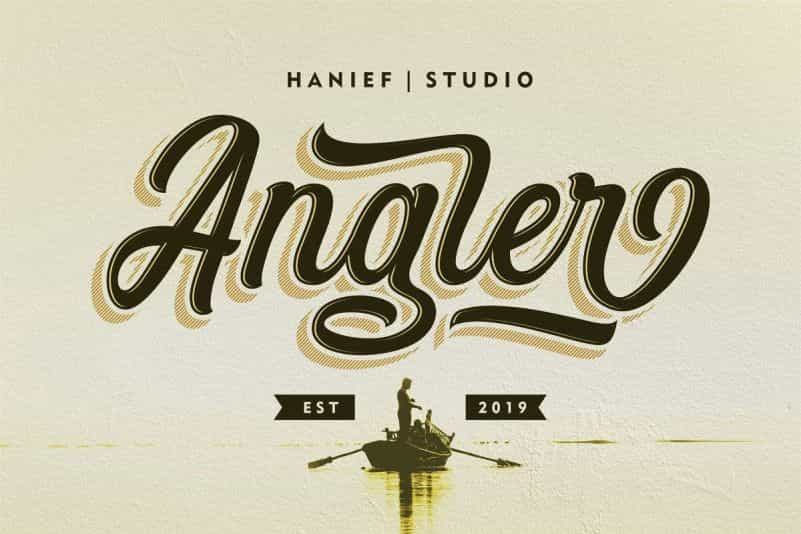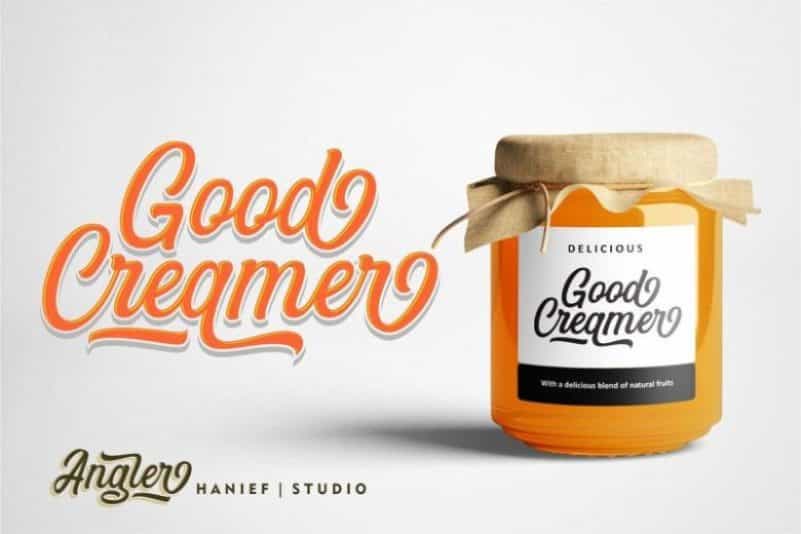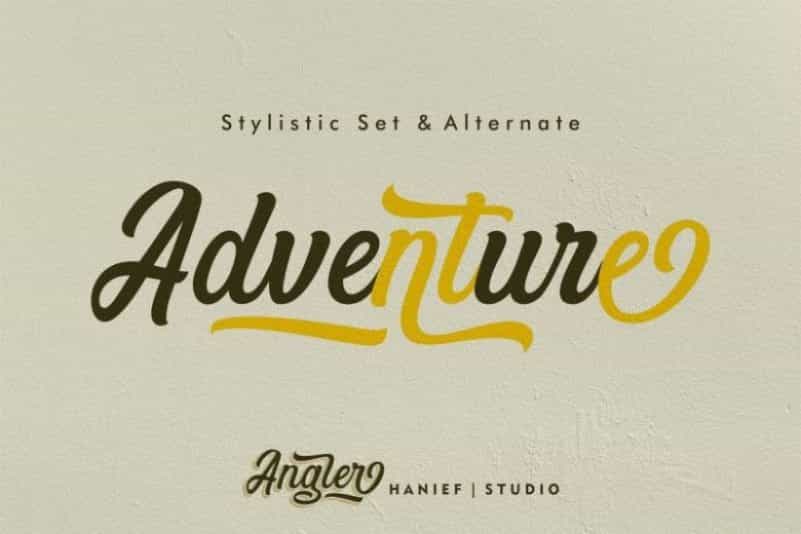
Discover Angler Modern Script Font, part of the Brush Calligraphy collection—a versatile and unique font perfect for adding a personal touch to your projects. Download it for free and enjoy crafting designs with style, from invitations to social media posts. This font is available exclusively for personal use, giving you the freedom to create without limits. Unlock your creativity with Angler Modern Script Font today!
The Angler is a Manual inspired by the contemporary fashion and streetwear trends combined with Hand Lettering style. I am touched with personality in every single curve. I expect this to be a motivation for you in your work. Besides, it has a very bouncy baseline and is perfectly accompanied by the marker font.